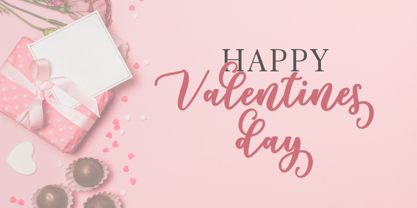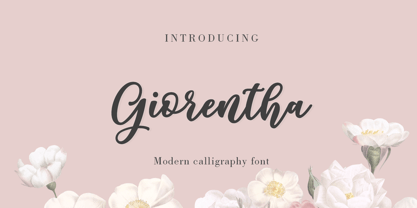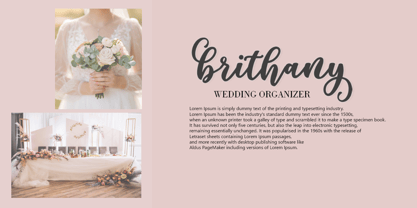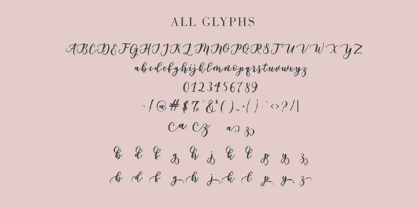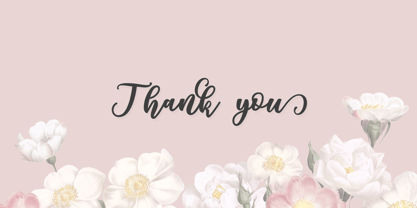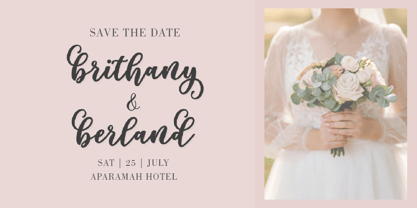
Giorentha
by Amarlettering
The Giorentha Font Family was designed by Kamaruddin and published by Amarlettering. Giorentha contains 1 styles. More about this family
Giorentha is a modern calligraphy script font with an elegant, soft, and romantic character. Designed with smooth curves and flowing strokes, Giorentha brings a natural handwritten feel while maintaining a clean and contemporary look. Its graceful letterforms make it perfect for designs that require beauty, warmth, and sophistication. This font is ideal for wedding invitations, branding, logos, feminine packaging, social media posts, quotes, stationery, and editorial designs. Giorentha works beautifully as a headline or display font, adding a personal and artistic touch to any creative project.